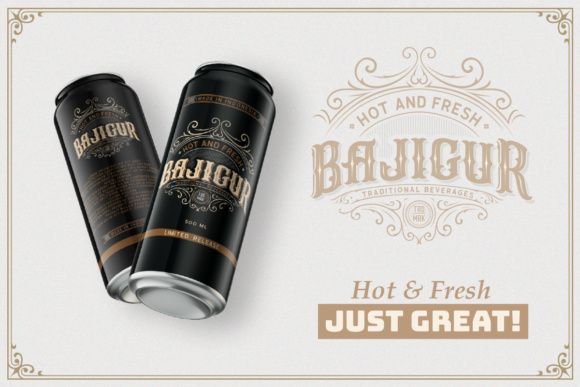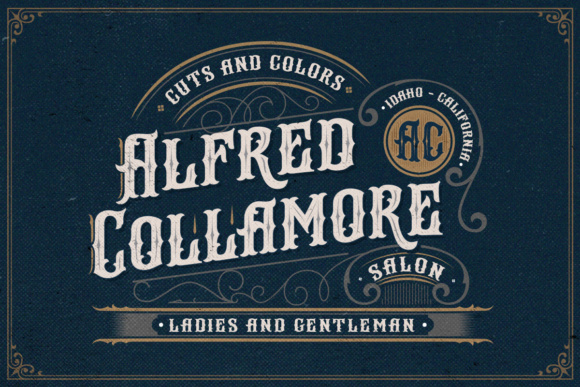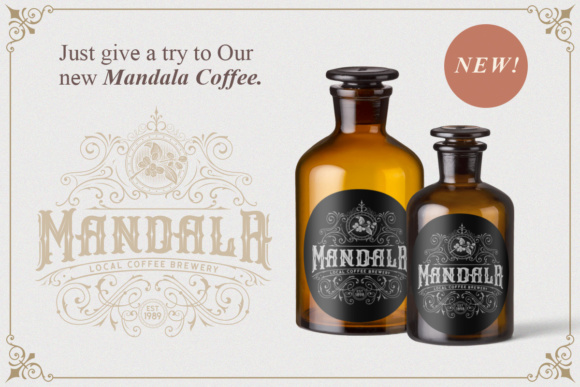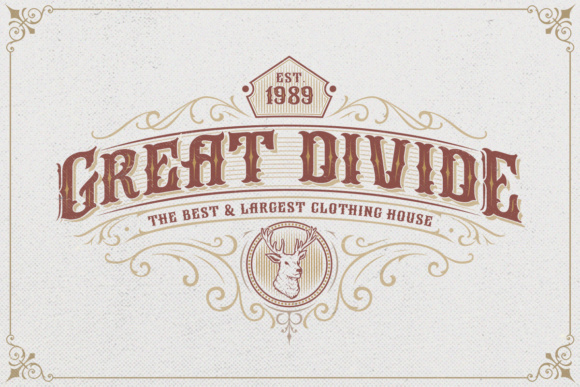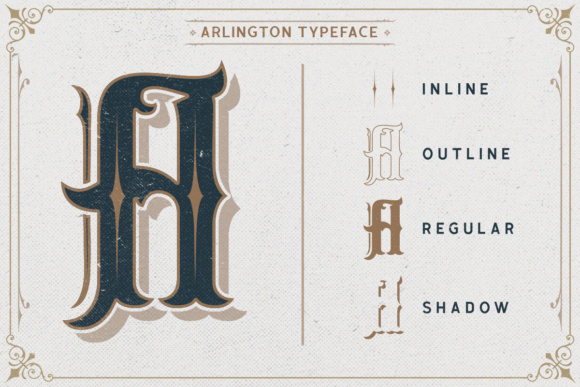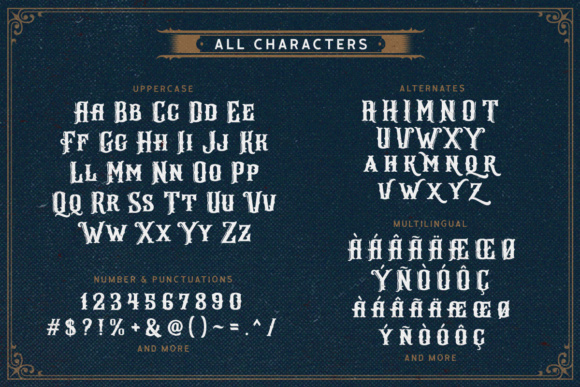
Introducing the Arlington Font: A Timeless Typeface Inspired by Vintage Lettering Signs
In the world of typography, few fonts manage to capture the essence of vintage charm while exuding boldness and solidity. The Arlington font, however, achieves just that. This layered typeface family is meticulously crafted, drawing inspiration from vintage lettering signs and art, making it a versatile and captivating addition to any design project.
A Victorian Touch with a Modern Twist
The Arlington font boasts a distinct Victorian flair, reminiscent of the ornate and intricate designs characteristic of the era. Yet, it seamlessly blends this classic aesthetic with a bold and solid appearance, making it suitable for a wide range of applications. Whether you’re working on headlines, logotypes, apparel, invitations, branding, packaging, or advertising, the Arlington font is designed to make a lasting impression.
Beautiful Decorative Ornaments at Your Fingertips
One of the standout features of the Arlington font is its inclusion of beautiful decorative ornaments. These elements are thoughtfully designed to enhance your creations, adding an extra layer of sophistication and elegance. With the Arlington font, you have access to a treasure trove of creative possibilities, allowing you to experiment and push the boundaries of your designs.
Crafting Exceptional Designs with Arlington
For designers and crafters, the Arlington font opens up a world of opportunities. Its versatility makes it an ideal choice for various projects, from editorial design and branding to product packaging and advertising. The font’s ability to convey a sense of history and tradition, while still looking contemporary and fresh, is a significant advantage in today’s competitive design landscape.
Key Features of the Arlington Font
- Layered Typeface Family: Offers depth and versatility, allowing for intricate designs.
- Vintage Inspiration: Draws from vintage lettering signs and art, providing a unique aesthetic.
- Victorian Touch: Adds a touch of elegance and sophistication to any project.
- Bold and Solid Appearance: Ensures your designs stand out with confidence.
- Decorative Ornaments: Includes a range of ornaments to embellish your creations.
- Wide Range of Applications: Suitable for headlines, logotypes, apparel, invitations, branding, packaging, advertising, and more.
Tips for Using the Arlington Font Effectively
To maximize the potential of the Arlington font, consider the following tips:
- Experiment with Layering: Take advantage of the font’s layered design to create complex and visually appealing typography.
- Mix and Match Ornaments: Combine different ornaments to add texture and interest to your designs.
- Play with Color: The Arlington font looks stunning in bold colors. Don’t be afraid to experiment with different color schemes to find the perfect fit for your project.
- Pair with Complementary Fonts: For added versatility, pair the Arlington font with complementary fonts to create a cohesive and engaging visual identity.
The Arlington font is a remarkable addition to any designer’s toolkit. Its unique blend of vintage charm, bold appearance, and decorative ornaments makes it an invaluable resource for creating standout designs. Whether you’re working on a branding project, crafting invitations, or designing packaging, the Arlington font is sure to inspire and elevate your work. Discover the creative possibilities with the Arlington font and bring your designs to life in ways you never thought possible.